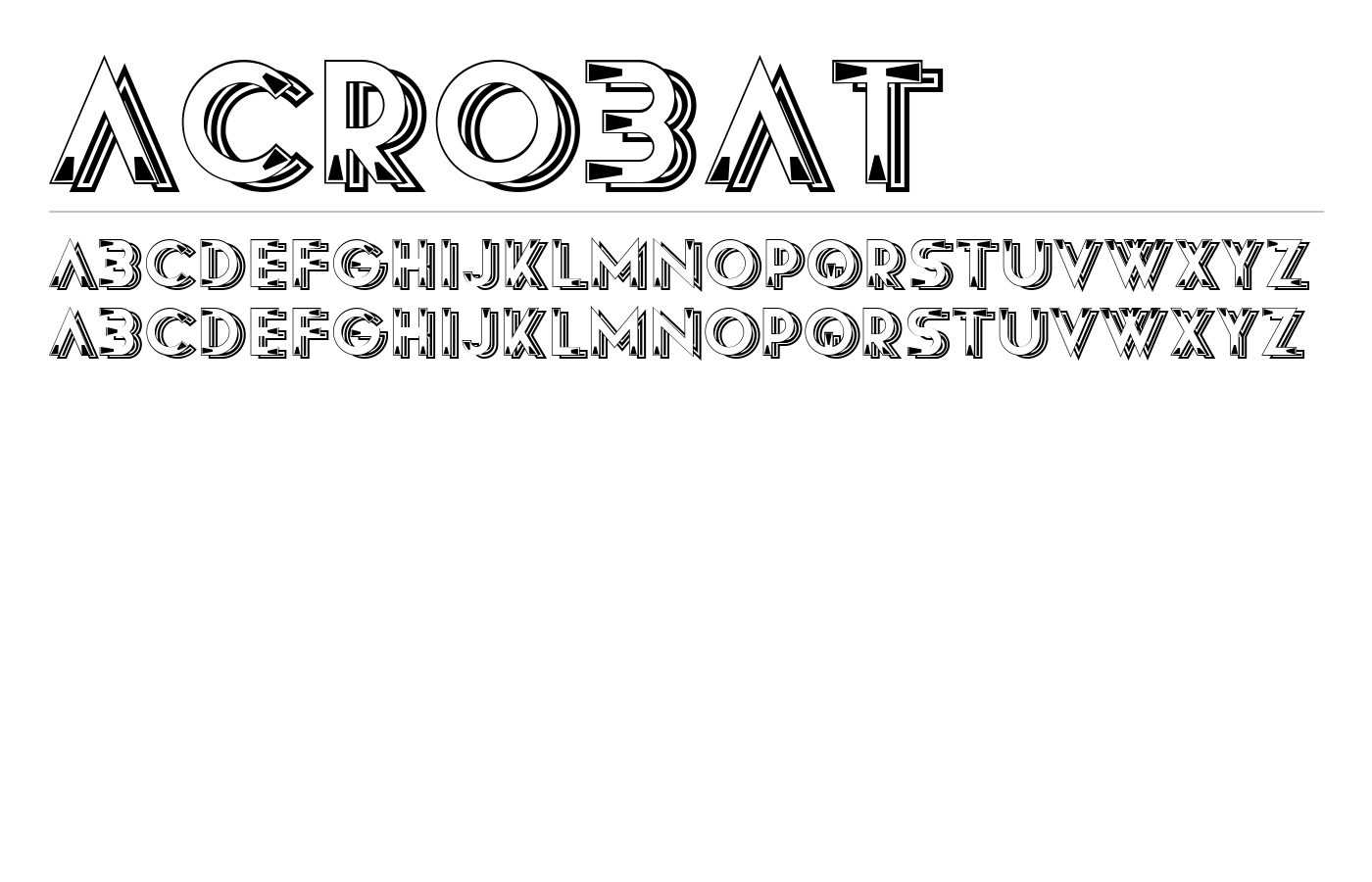
Acrobat is a unique, decorative display font with bold, geometric shapes and sharp angles that create a dynamic and theatrical look. Its outlined, layered strokes and stylized details give it a vintage circus or art deco vibe, making it perfect for eye-catching headlines, posters, and branding that aim to convey excitement and creativity. This font works best in large sizes where its intricate design can shine without losing readability.
Acrobat Font
About Acrobat Font
| Font family | Acrobat Font |